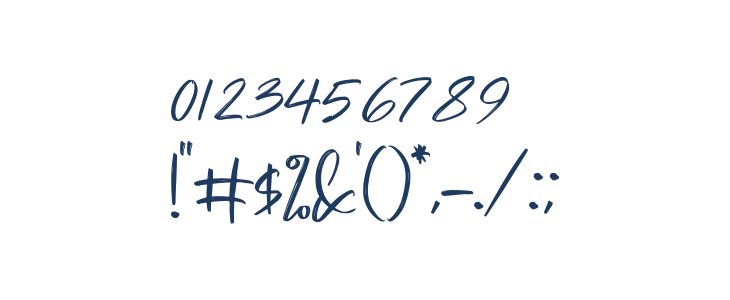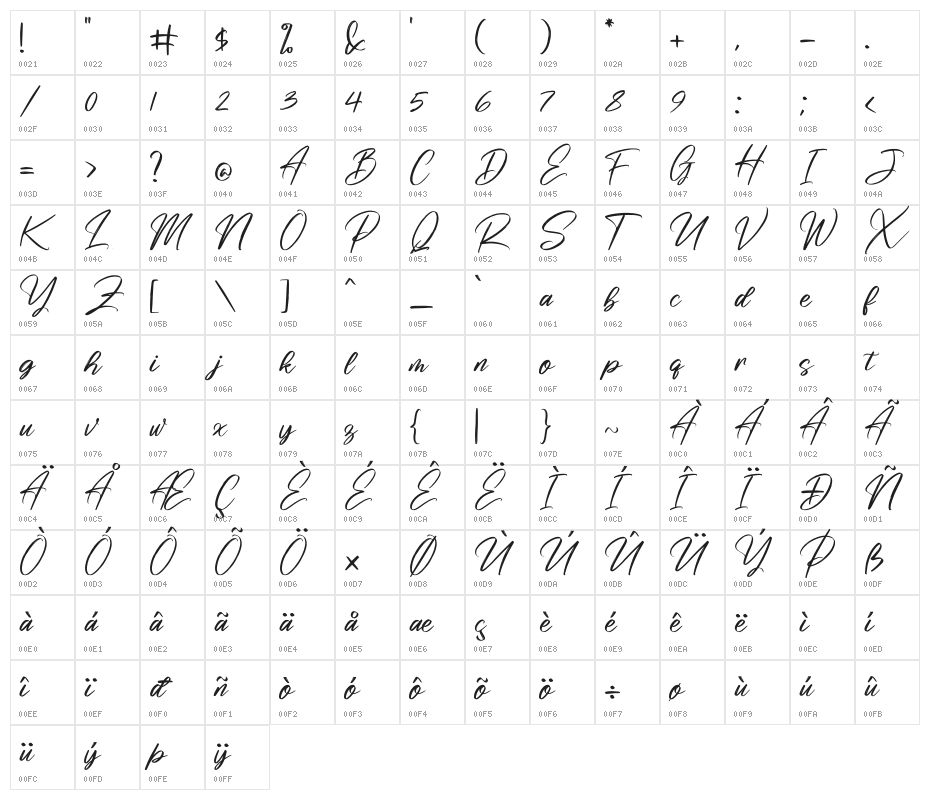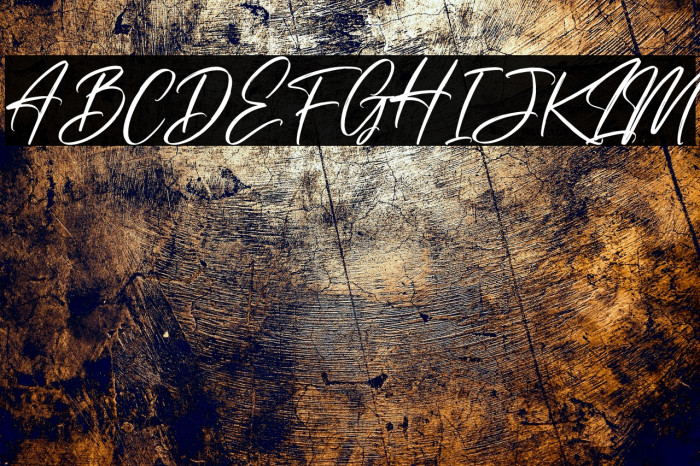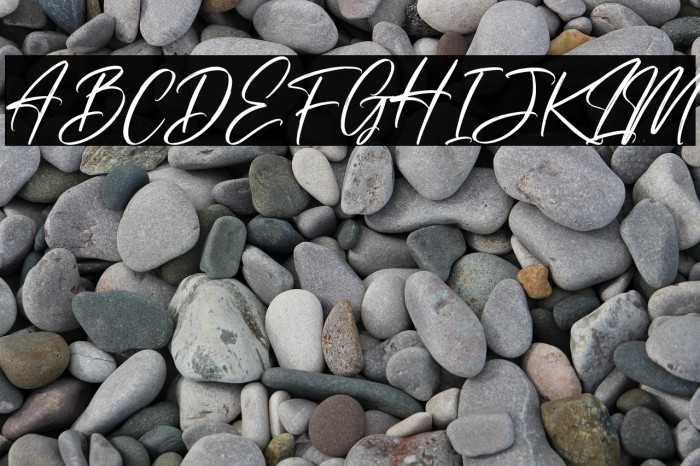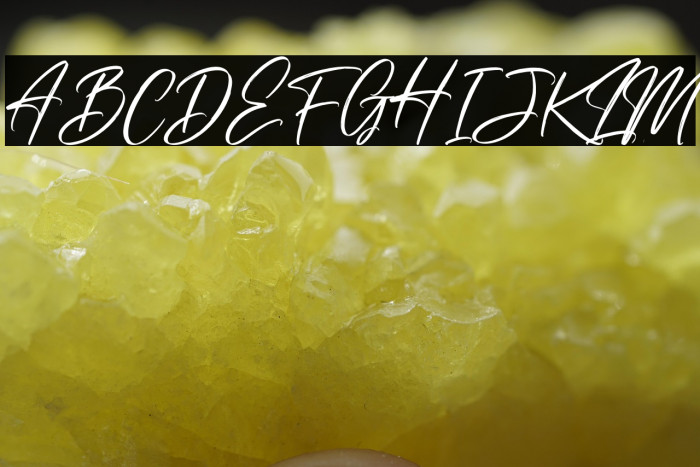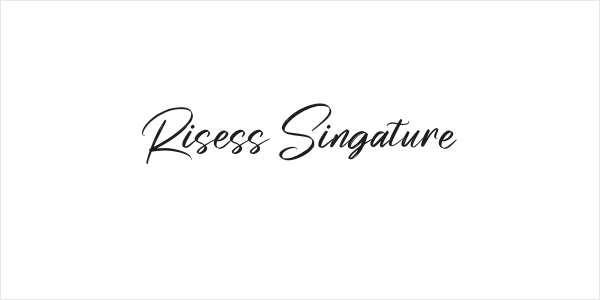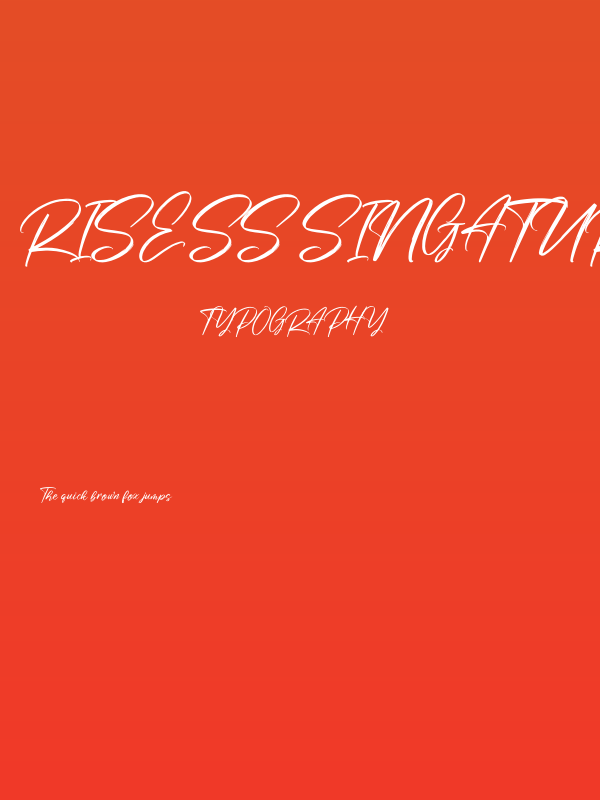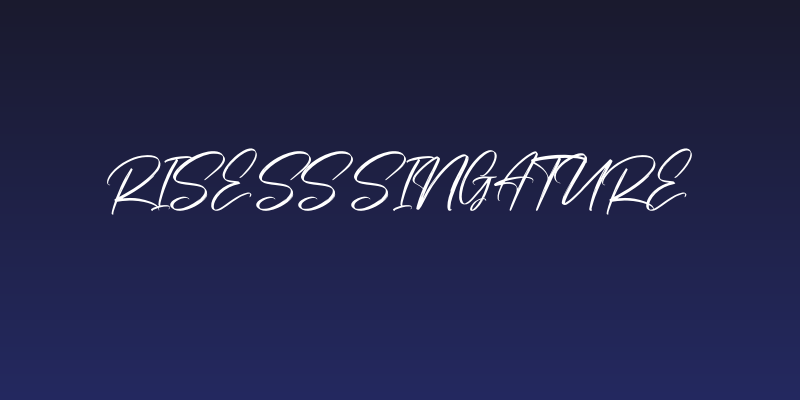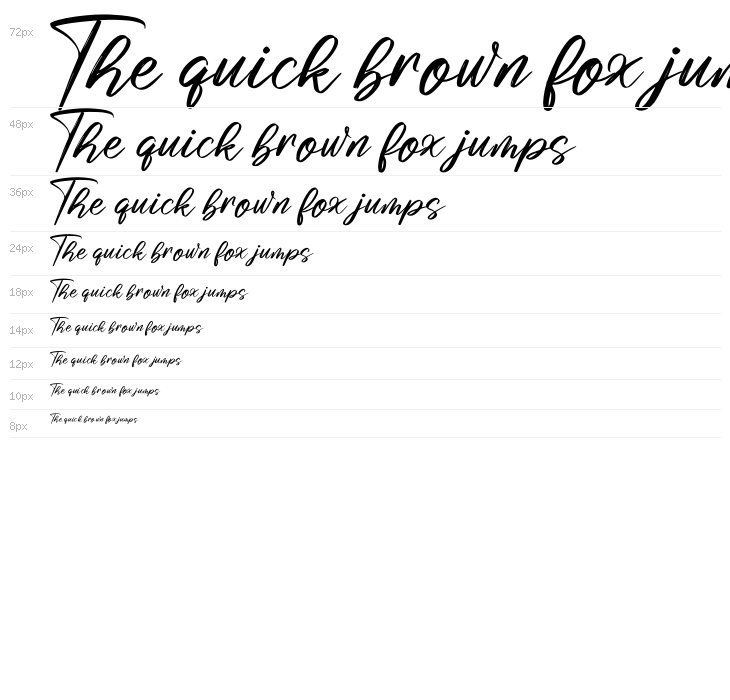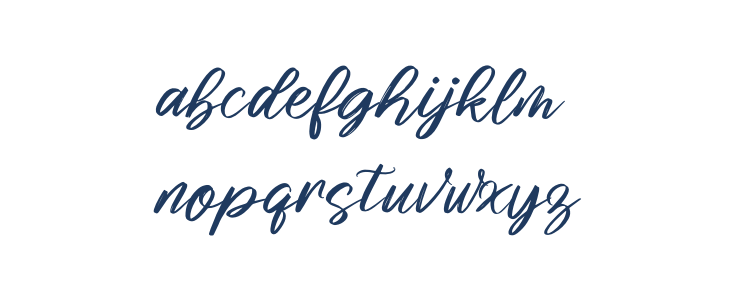
Risess Singature Font
Risess Singature Description
This font exudes a modern and stylish flair with its cursive, handwritten appearance. The uppercase letters are elegantly connected, creating a fluid and dynamic look, while the lowercase letters maintain a consistent flow with slightly varied heights and loops. The numerals are clear and easy to read, complementing the overall aesthetic. Special characters are thoughtfully designed to match the script style, adding a touch of sophistication. The font's smooth curves and balanced proportions make it ideal for projects that require a personal and artistic touch.
Use CaseLogos, Invitations, Personal Signatures
Proposed ProjectsIdeal for wedding invitations, branding, personal signatures, and artistic projects.